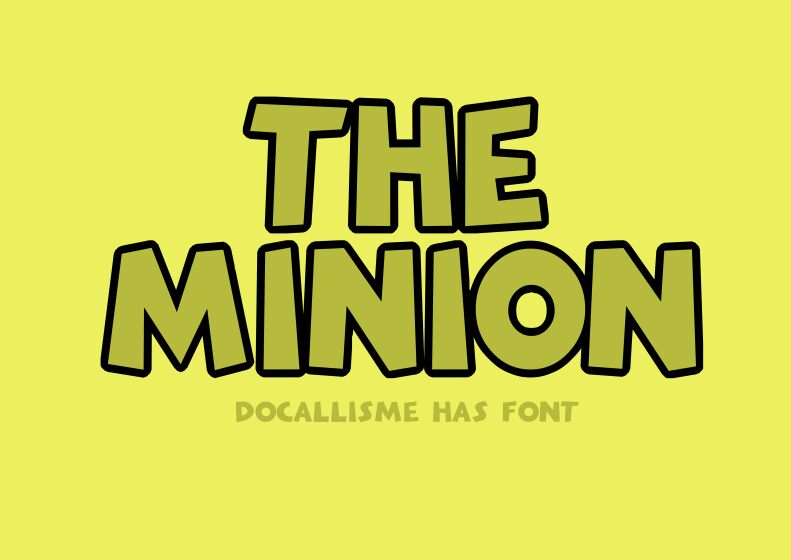
THE MINION
THE MINION, a playful and dynamic typeface crafted by The Docallisme - Amry Al Mursalaat, brings a burst of cartoonish charm to the display font family. With its bold weight and semi-expanded width, THE MINION exudes confidence and readability, making it an excellent choice for titles that demand attention without sacrificing character.
The aesthetic appeal of THE MINION lies in its ability to capture the whimsical essence of animated storytelling. Its robust stature is softened by curves and lines that suggest movement and fun. The overall style radiates a friendly vibe, making it particularly suitable for creative projects aimed at younger audiences or designs that require a touch of lightheartedness.
Whether it's for branding materials, event posters, or engaging social media graphics, THE MINION stands out with its approachable yet assertive style. This font not only captures the imagination but also ensures that your message is delivered with a memorable twist.